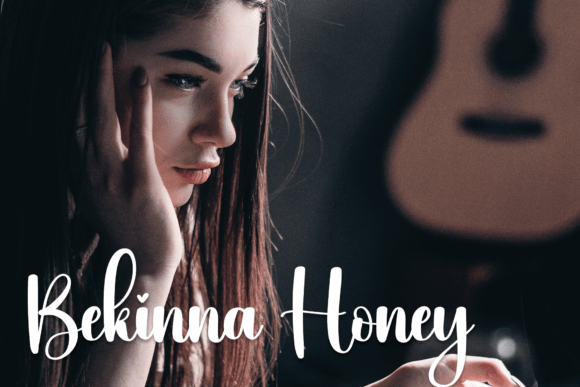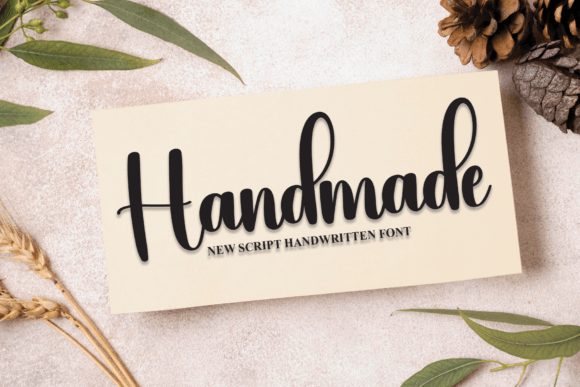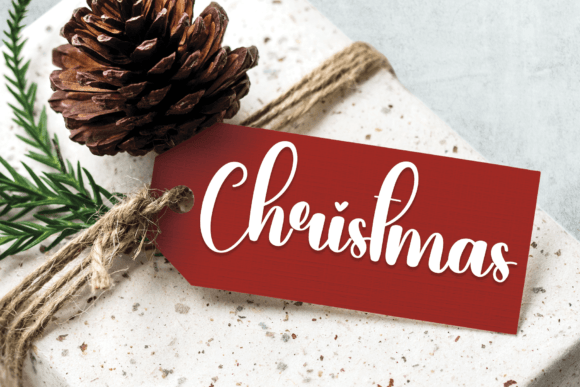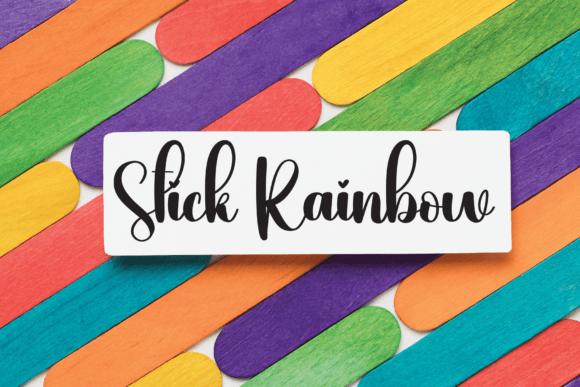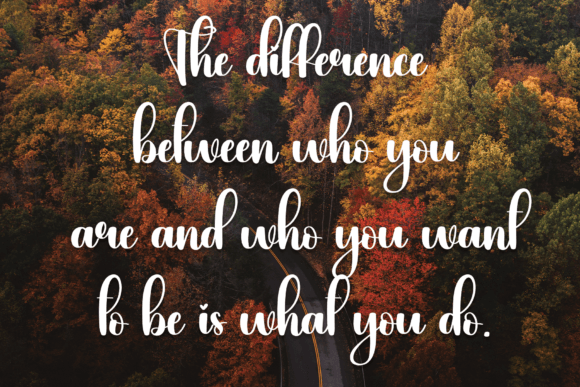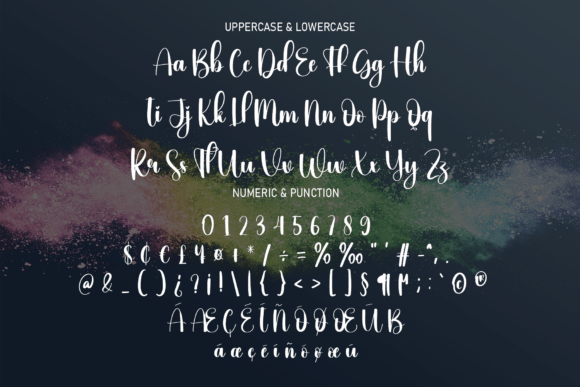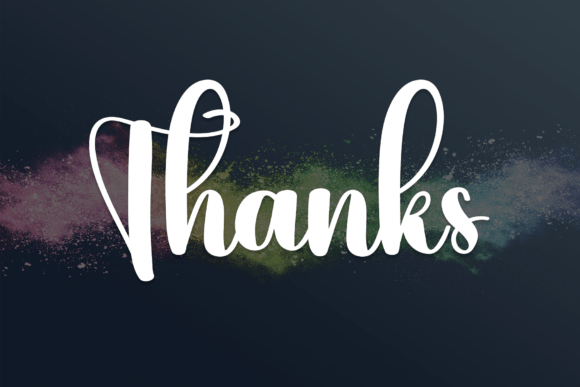
Giving Font
The Giving font offers beautifully crafted handwritten letters that bring charm and elegance to a variety of creative projects. Its latest style makes it perfect for wall displays, wedding invitations, social media post logos, advertisements, product packaging, product designs, labels, photography, watermarks, invitations, stationery, and more.
With its smooth, flowing strokes, the Giving font adds a warm, handcrafted feel to any design. It combines readability with style, making it suitable for both large headlines and smaller text details. This balance ensures your projects look professional and inviting.
Whether you are designing romantic wedding invitations or creating modern branding materials, the Giving font provides versatility and sophistication. It enhances logos, packaging, and promotional designs with a unique handwritten touch.
In summary, the Giving font is a beautiful and versatile handwritten script perfect for weddings, branding, packaging, social media, and countless other creative uses. Download it today to elevate your designs with elegance and warmth.